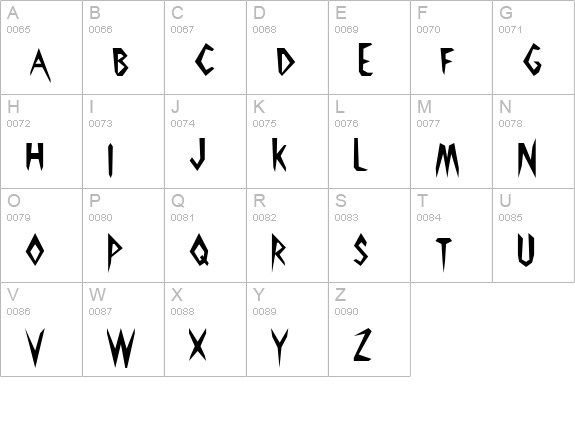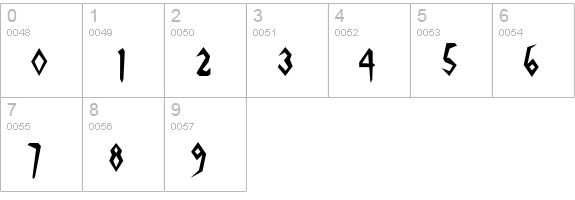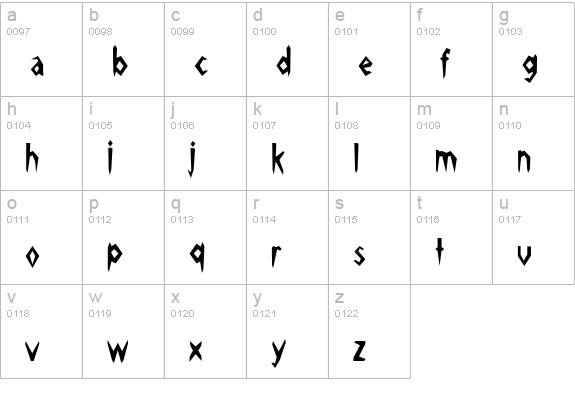
Pick Ax Font Details
Introducing Pick Ax, a bold and powerful font that exudes strength and versatility. With its sharp edges and distinct design, Pick Ax is perfect for creating eye-catching headlines, logos, posters, and more. This font strikes the perfect balance between modernity and tradition, making it suitable for a wide range of creative projects. What sets Pick Ax apart is not only its striking aesthetics, but also the fact that it is available for free! Yes, you read that right! Pick Ax can be freely downloaded at FontsMarket.com, allowing designers, artists, and enthusiasts to unleash their creativity without any cost constraints. This generous offer ensures that everyone can benefit from the unique and captivating style that Pick Ax brings to their designs. With its wide range of uppercase and lowercase letters, numerals, punctuation marks, and special characters, Pick Ax offers endless possibilities for customization and personalization. Whether you're aiming for a sleek and modern look or a bold and edgy vibe, this font has got you covered. Its clean lines and strong presence make it ideal for branding projects, editorial design, packaging, and much more. But Pick Ax is not just a font; it's a statement. It embodies the spirit of breaking boundaries and pushing limits, encouraging designers to think outside the box and explore new creative horizons. Its distinctive style is sure to leave a lasting impression and make your designs stand out from the crowd. So why wait? Download Pick Ax today from FontsMarket.com and unleash your creativity. Whether you're a professional designer or a passionate hobbyist, this font will elevate your projects to new heights. With Pick Ax, the possibilities are endless, and the best part is, it won't cost you a dime. Don't miss out on this incredible opportunity to add a touch of boldness and sophistication to your designs. Get Pick Ax now and let your creativity shine!